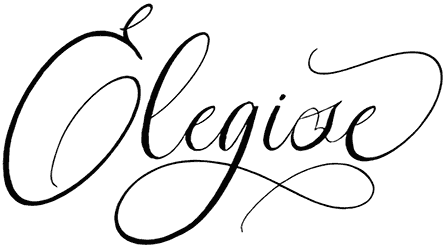
Better Phoenix Font
Elegance is just one of the basic features Better Phoenix shares with your typography once you choose to go with this script font. There’s no limitation in regards to its purposes as long as you want your logo, website header, digital cover, card, or else to be easy on the eye.
You may find a few surprises among its elements, aside from the fact that its swashes might not permit a very straightforward interface, but rather stylish and elaborate lettering.
“Better Phoenix” is a polished brush font, with 400+ glyphs, including:
– A-Z, a-z, 0-9, accents, punctuation and symbols
– Small Caps
– Contextual and stylistic alternates
– Swashes
– Ligatures